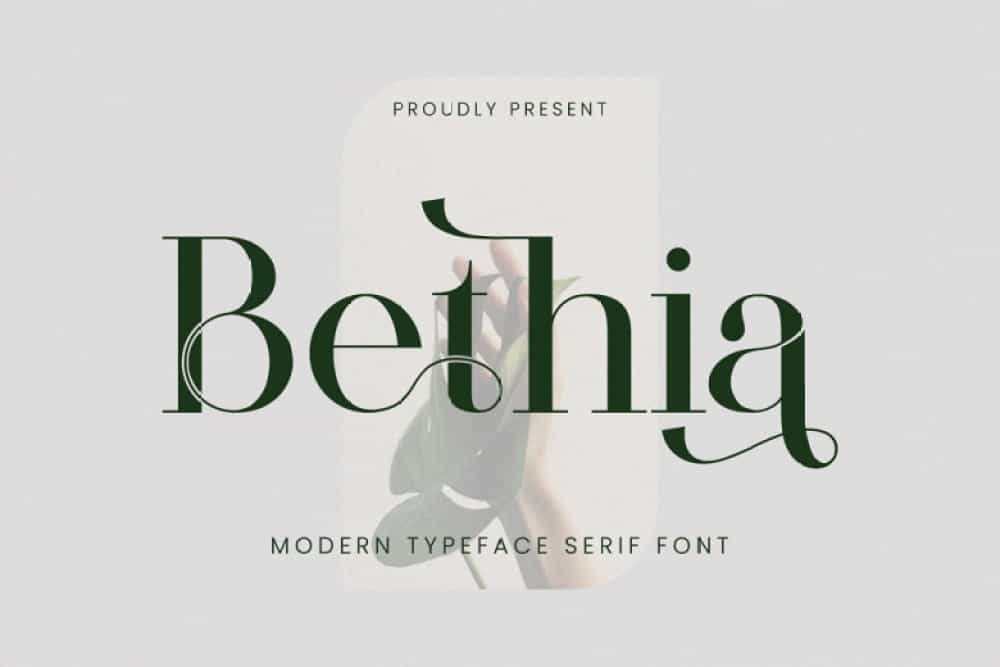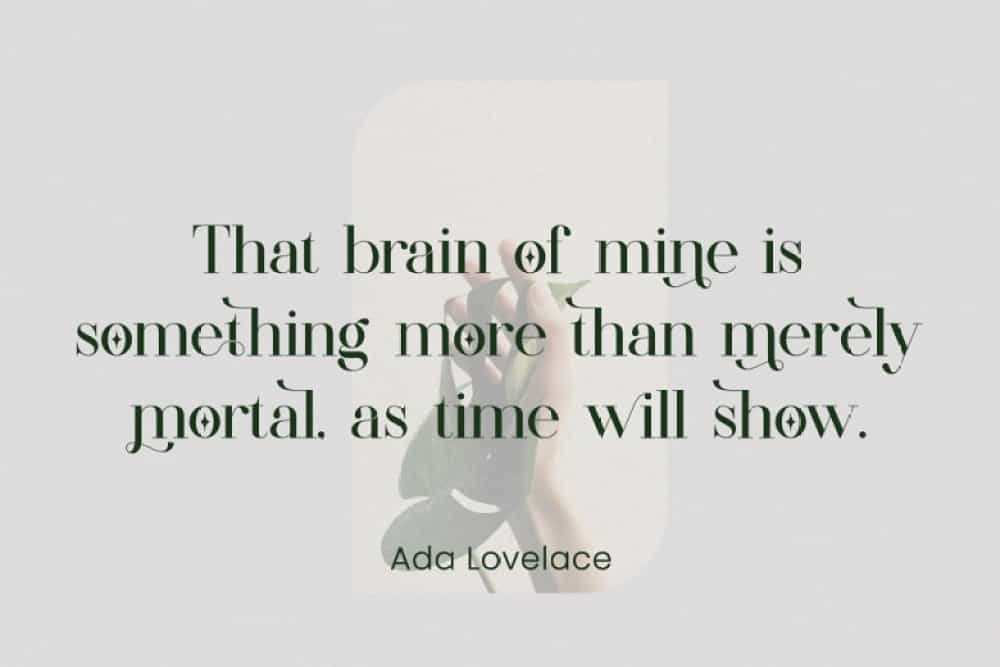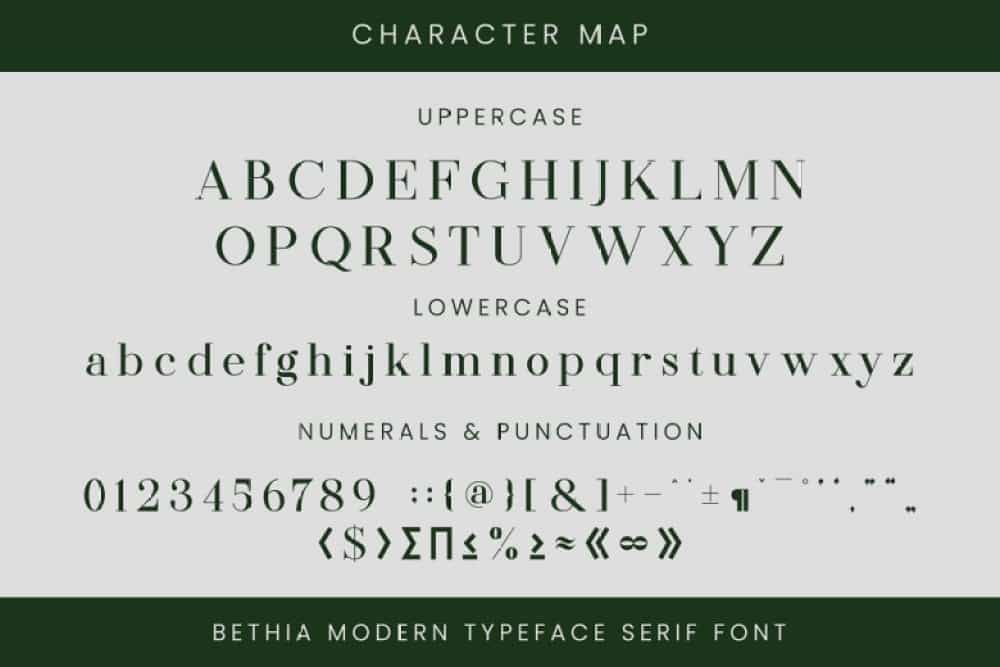
Bethia is a modern serif font. He has a very good character, very polite and very kind. It is suitable for invitation cards, logo of a company, title of a movie or a name of a movie, business card, title of a book, name of a brand, and many other designing purposes. It’s stylish and elegant alternations and ligatures this font will go well with any project that you have in mind.